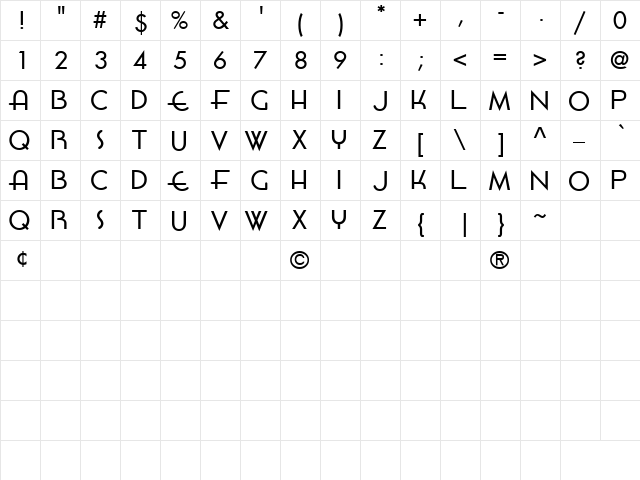
Hamburger Sandwitch Regular
Design Context for Hamburger Sandwitch Typeface
Hamburger Sandwitch offers clean, dependable letterforms without strong stylistic allegiance, making it a practical choice for designers who need flexibility.